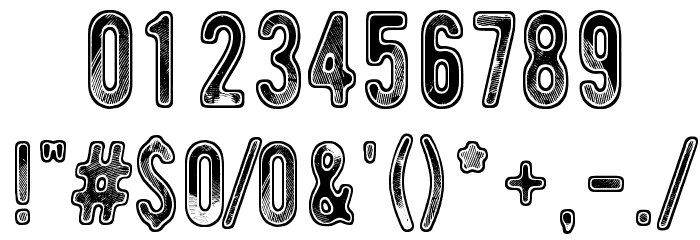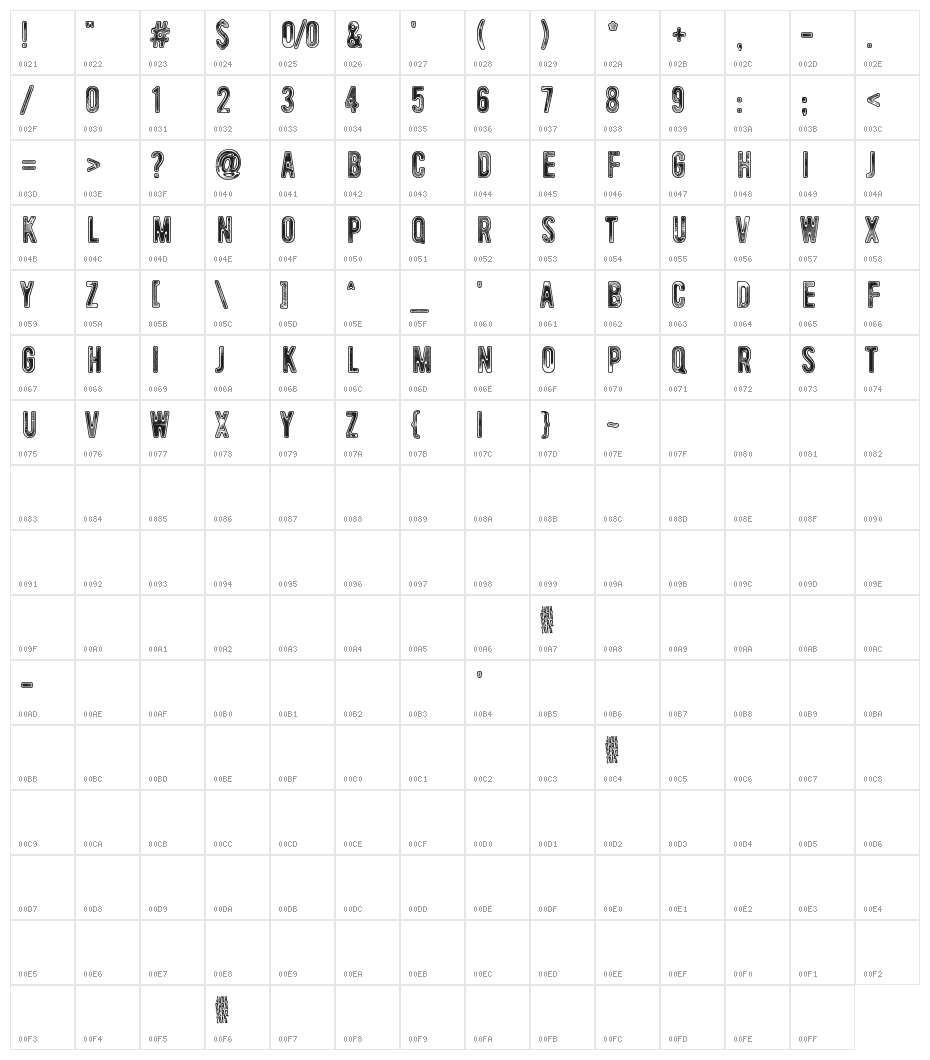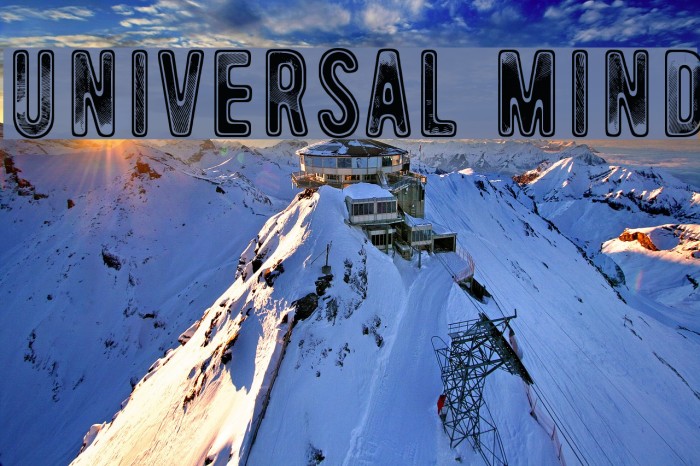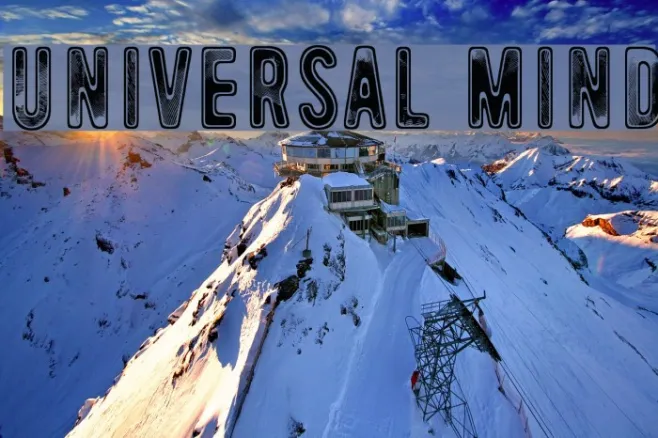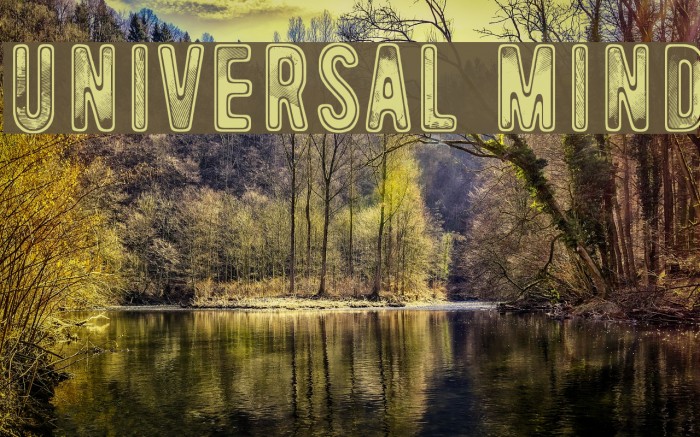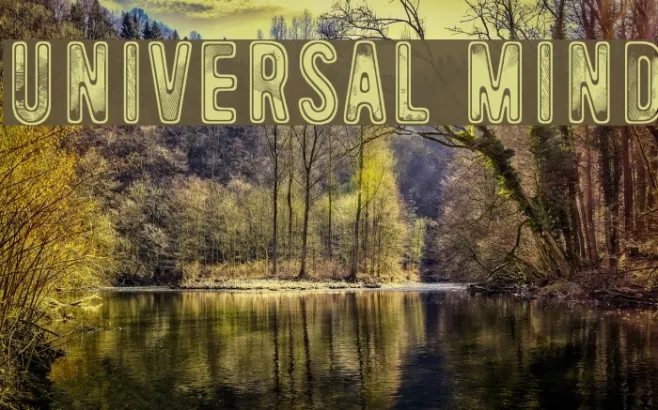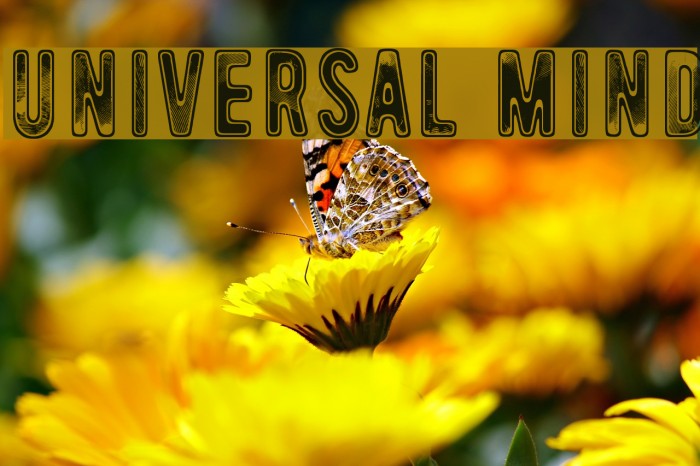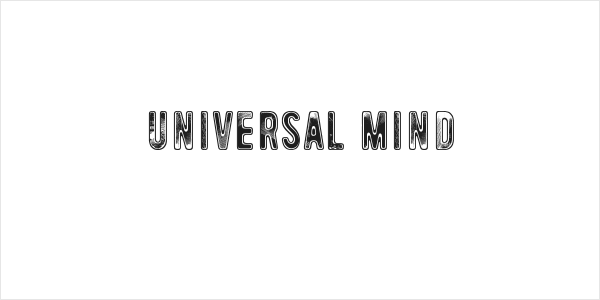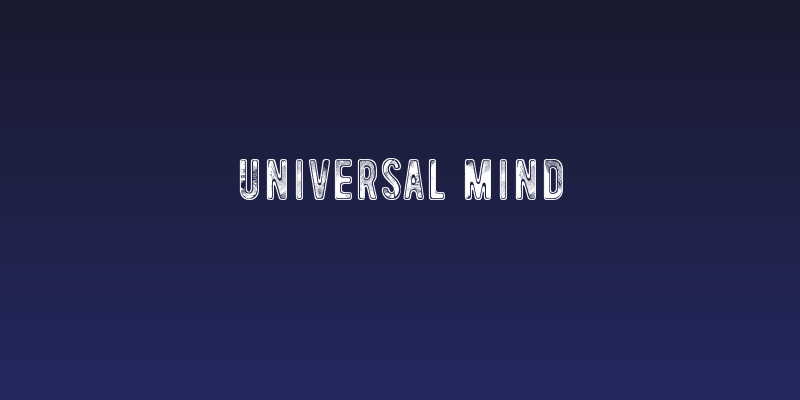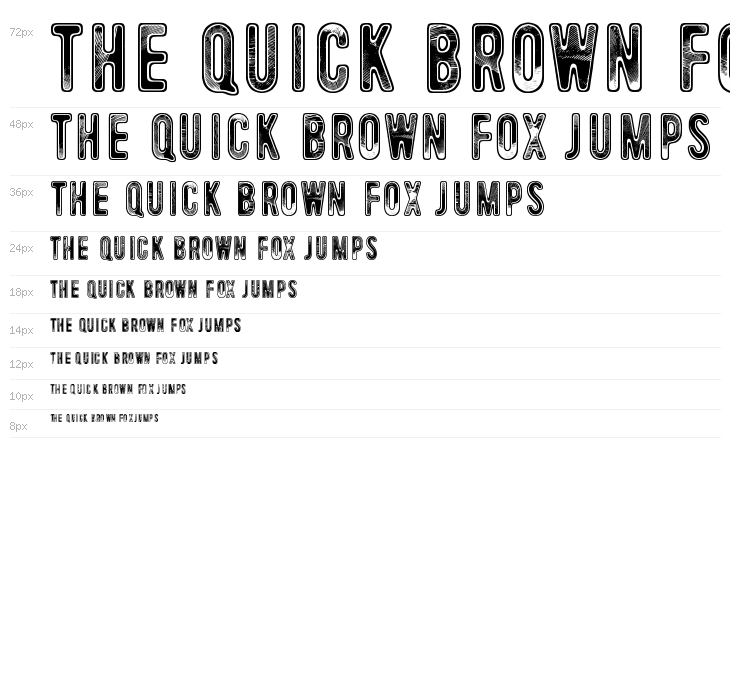
Universal Mind Font
Universal Mind Description
This font features a bold, decorative style with a vintage flair. Each character is outlined with a thick, shadowed border, giving it a three-dimensional appearance. The interior of the letters is filled with a textured pattern that adds depth and visual interest. The uppercase and lowercase letters maintain a consistent design, ensuring uniformity across different text compositions. The numerals and special characters are crafted with the same attention to detail, making them suitable for a variety of uses. The overall aesthetic is reminiscent of retro signage or posters, making it ideal for projects that require a touch of nostalgia.
| Proposed Projects | Ideal for vintage-themed posters, retro branding, signage, and creative packaging designs. |